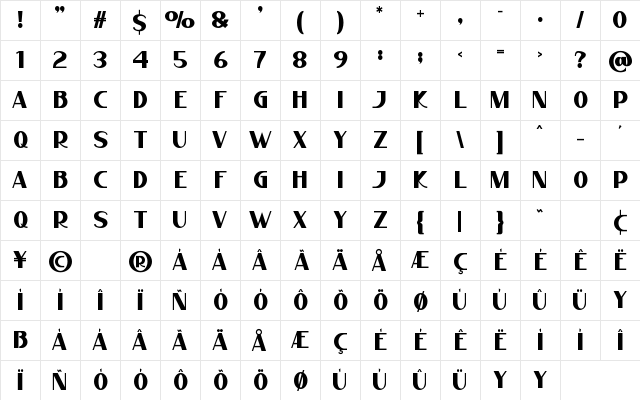
Autumn Romans Regular
Designer: Maikohatta
Design Context for Autumn Romans
Autumn Romans is a composed and adaptable typeface that performs quietly and consistently across a wide range of design contexts.